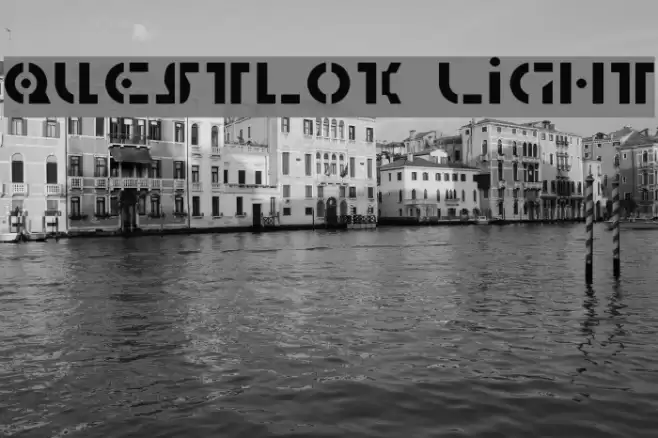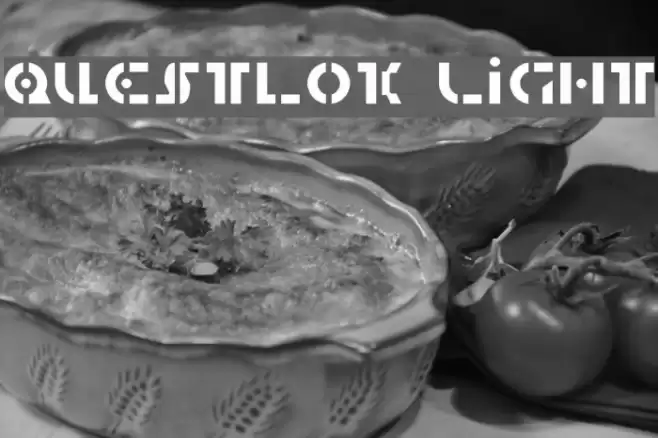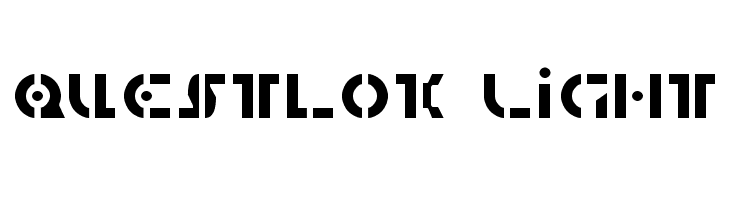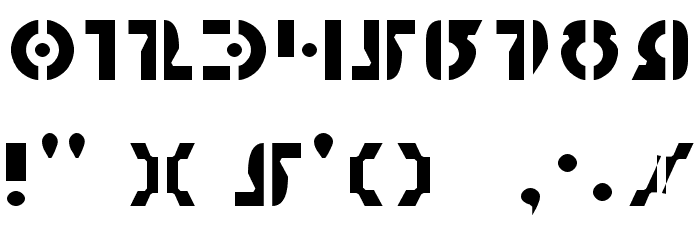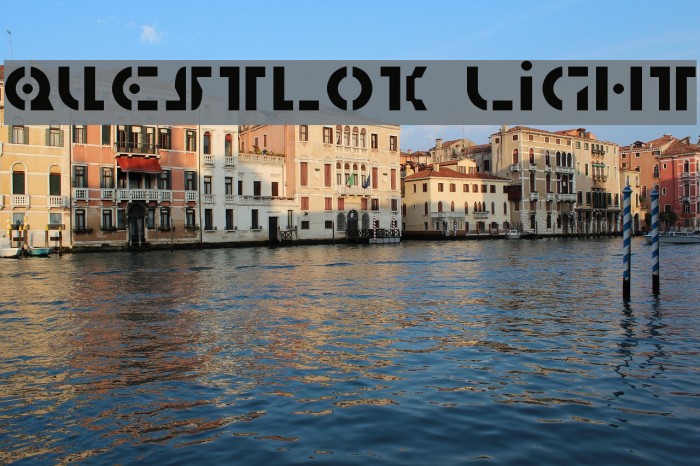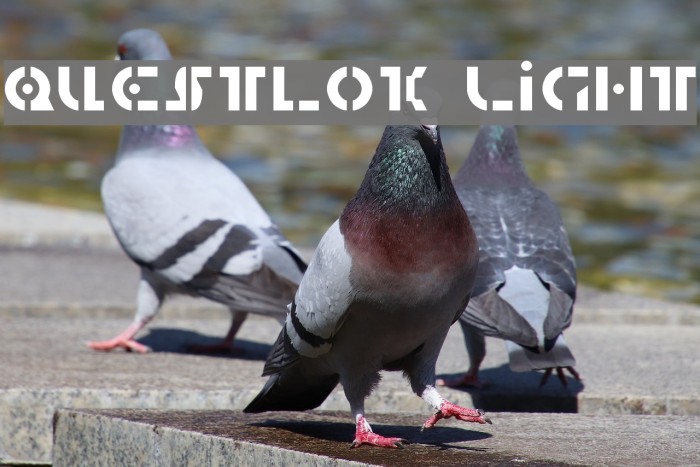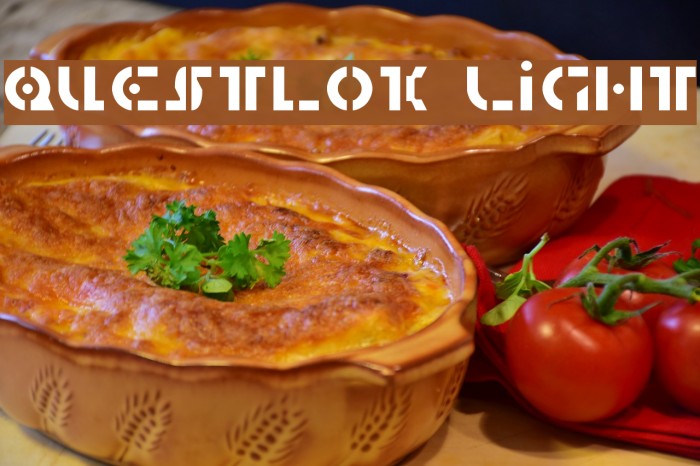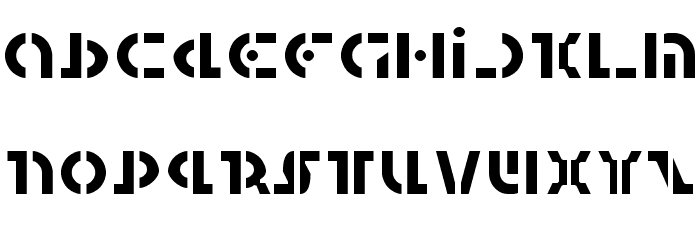
Questlok Light Font
Questlok Light Description
This font features a unique and modern design with geometric shapes and cut-out elements that create a futuristic and digital appearance. The characters are bold and have a distinct stencil-like quality, making them stand out with their sharp angles and clean lines. The uppercase and lowercase letters maintain a consistent style, while the numbers and special characters complement the overall aesthetic. This font is ideal for projects that require a contemporary and edgy look, such as technology-themed designs or branding for innovative products.
A modern, geometric font with a futuristic, stencil-like design from Decorative fonts.
- Proposed Projects: Ideal for technology branding, digital media, futuristic posters, and innovative product packaging.